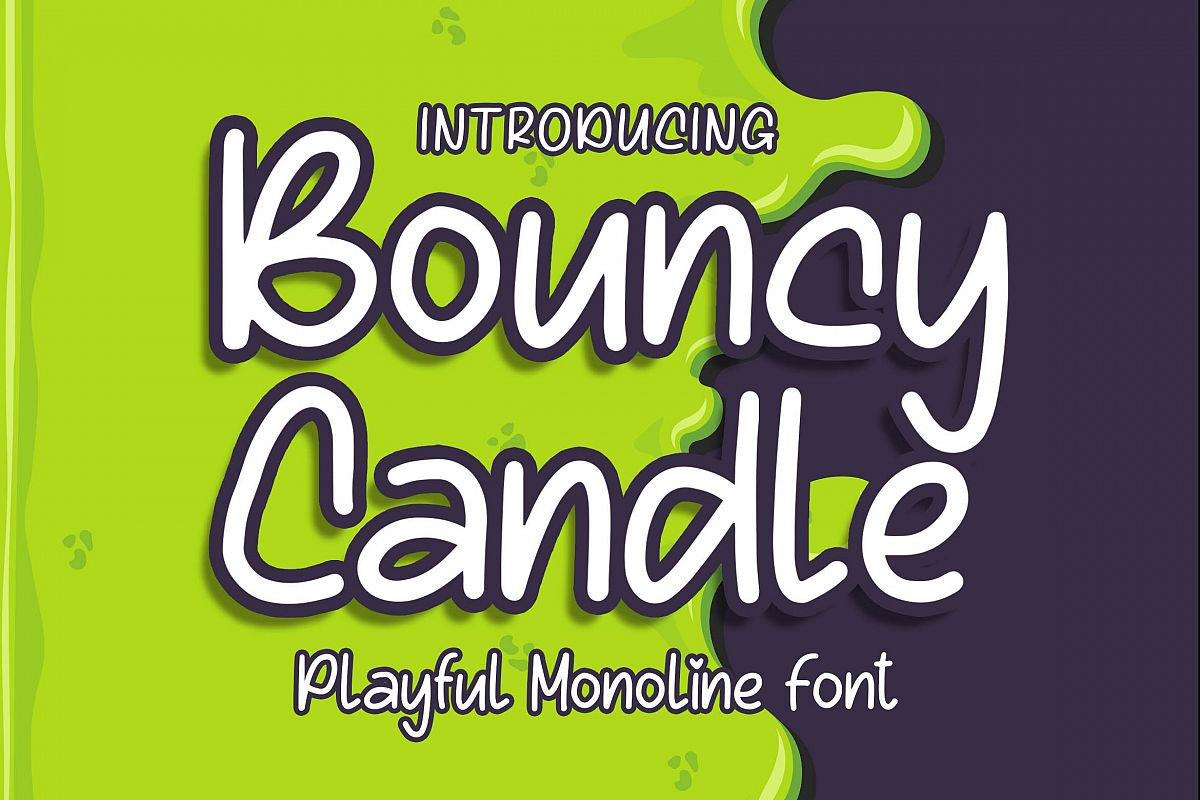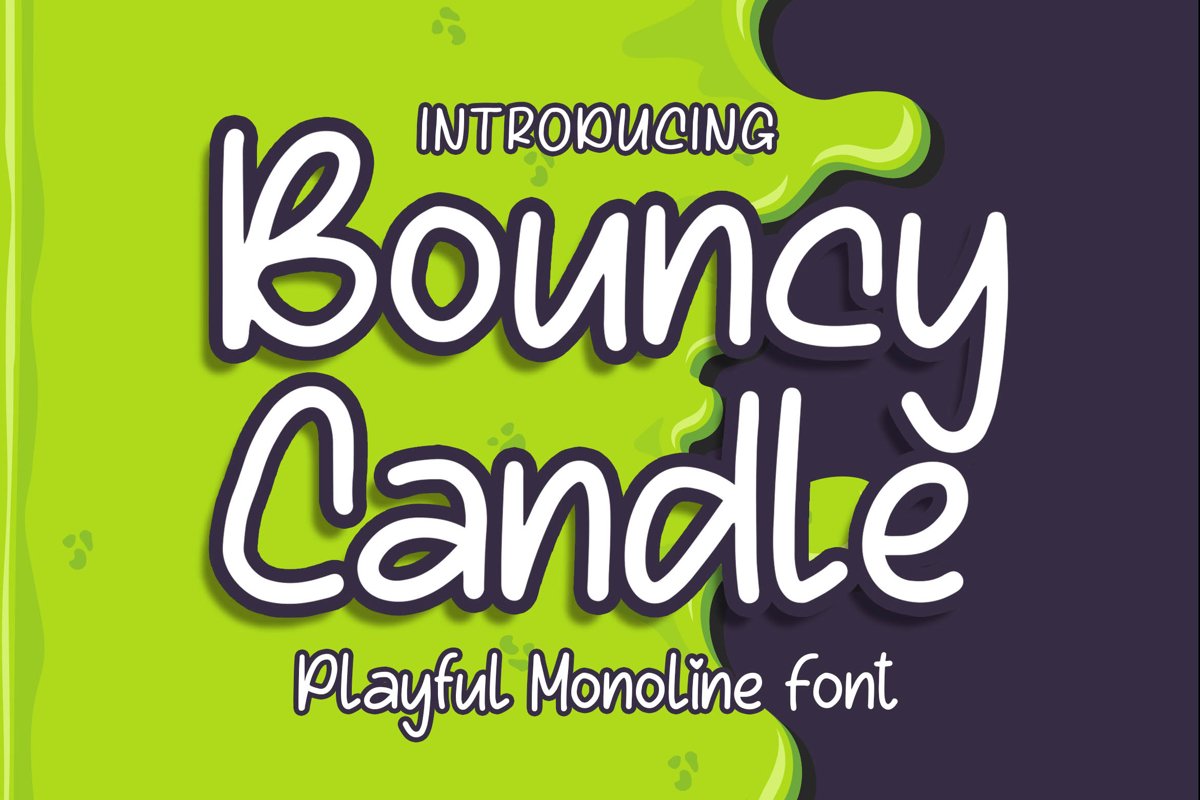
Bouncy Candle - Playful Monoline Font
Introducing of our new product the name is Bouncy Candle Playful Monoline Font. Bouncy Candle inspired by modern calligraphy this font is a fun theme very good for Kids poster,comic, cartoon, branding etc
MULTILINGUAL ACCENT :
ØÆøæ¢ÐŒœÁĂÂÀÄĄÅÃǼĆČÇĈĊĎÉĔĚÊËĖÈĘĞĜĢĠĤÍĬÎÏİÌĮĨĴĶĹĽĻĿŃŇŅÑÓŎÔÖÒŐǾÕŔŘŖŚŠŞŜȘŤŢÚŬÛÜÙŰŲŮŨẂŴẄẀÝŶŸỲŹŽŻáăâäàąåãǽćčçĉċďéĕěêëėèęğĝģġĥíîïìįĩĵķĺľļŀńʼnňņñóŏôöòőǿõŕřŗśšşŝșťţŭûüűùųůũẃŵẅẁýŷÿỳźžż